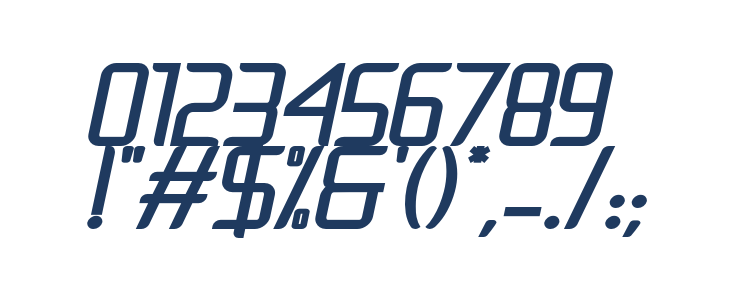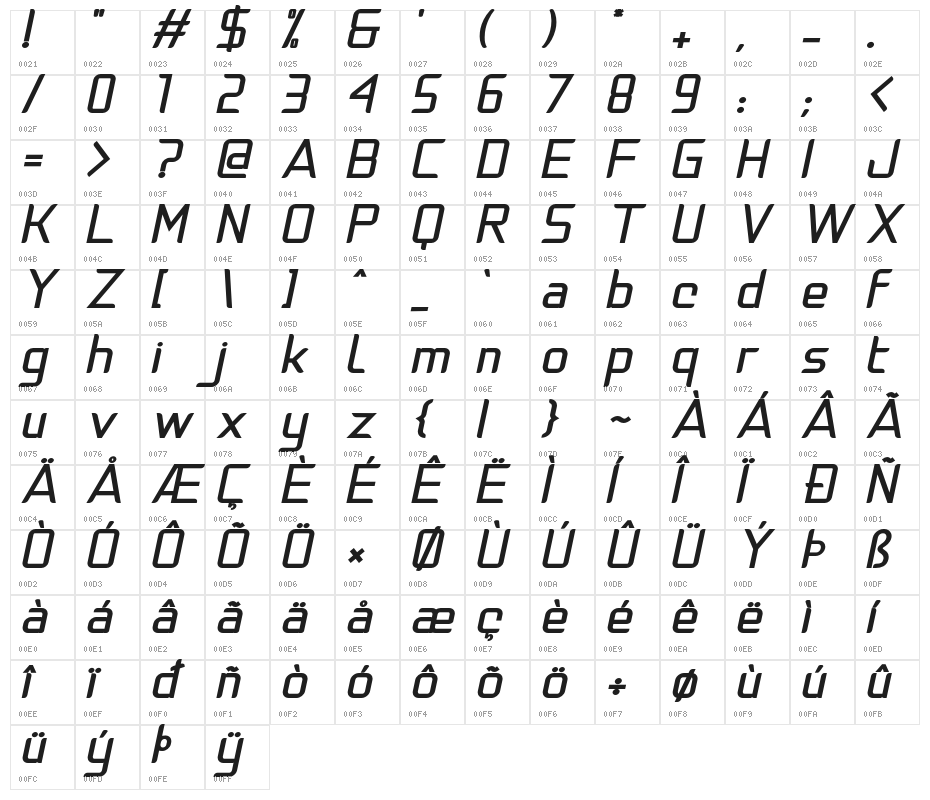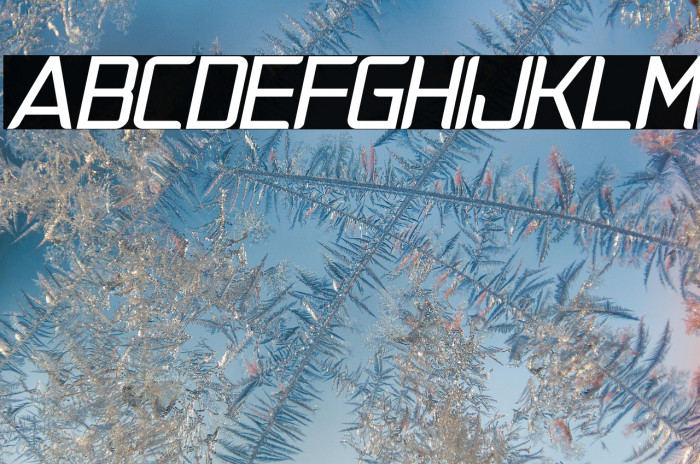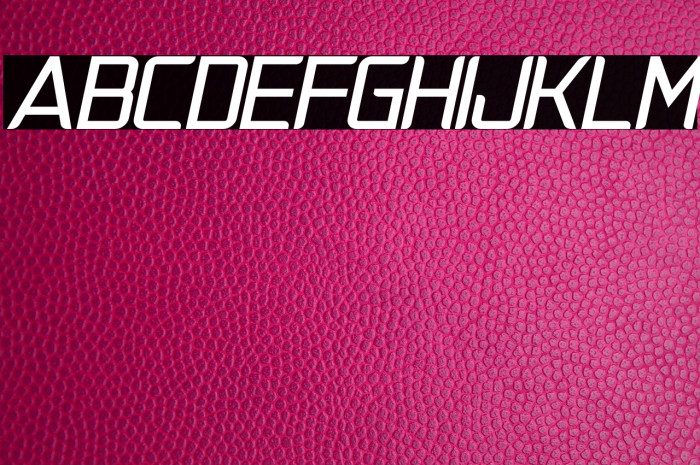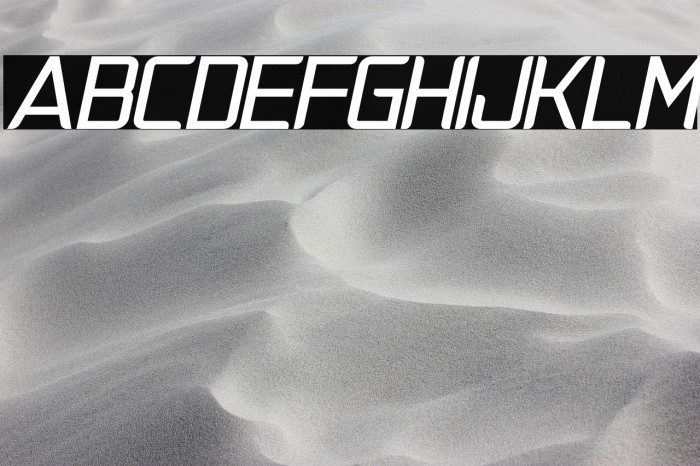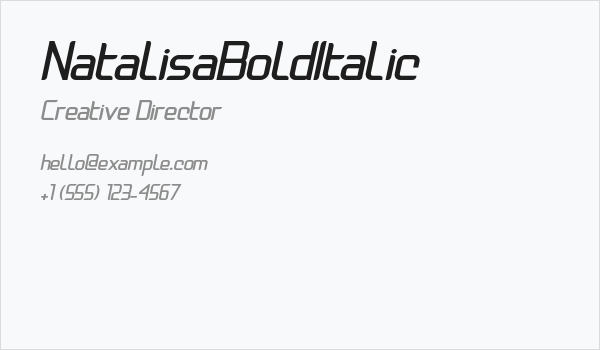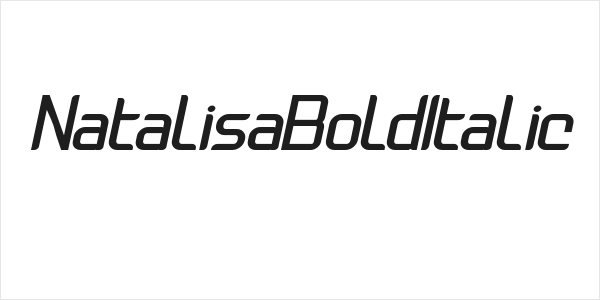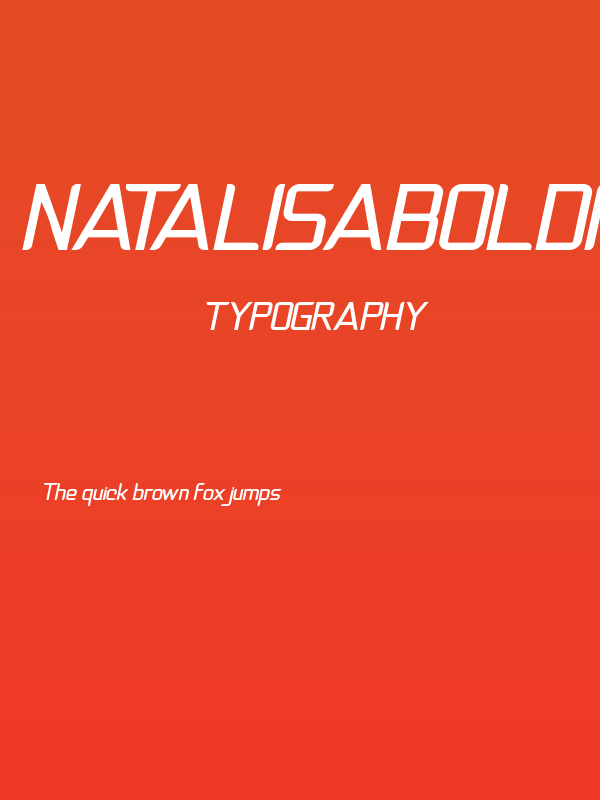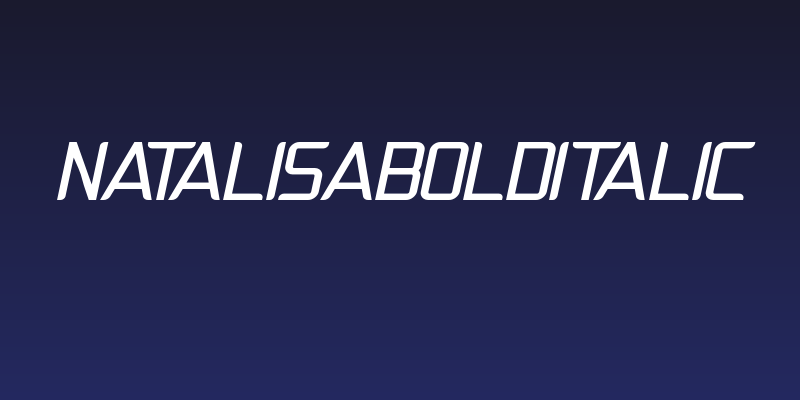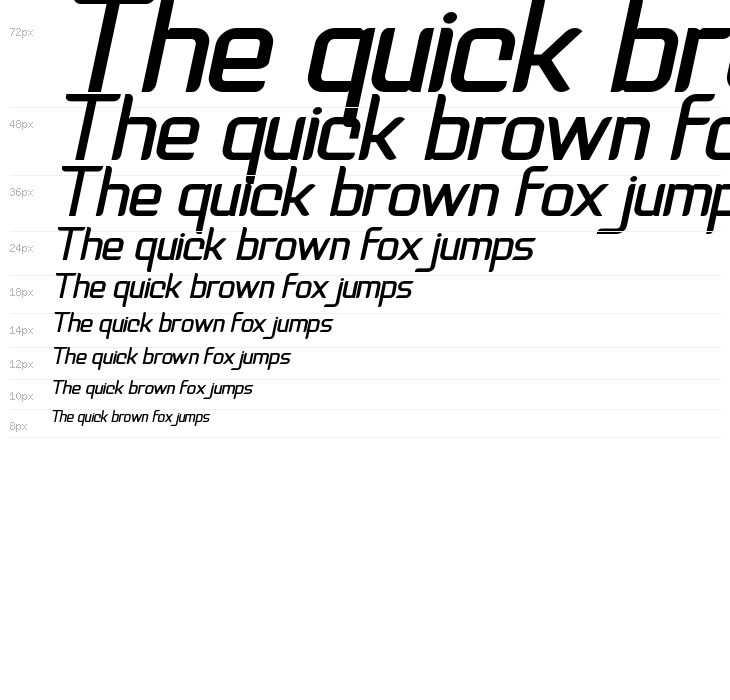
NatalisaBoldItalic Font
NatalisaBoldItalic Description
This font features a modern and sleek design with a distinct italic slant, giving it a dynamic and forward-moving appearance. The characters are bold and slightly condensed, providing a strong visual impact. The strokes are consistent in thickness, offering a medium contrast that enhances readability while maintaining a stylish look. The overall style is contemporary, making it suitable for various digital and print applications. The font includes a full set of uppercase and lowercase letters, numerals, and a range of special characters, ensuring versatility in design projects.
| Proposed Projects | Ideal for branding, advertising, sports-related designs, and modern editorial layouts. |